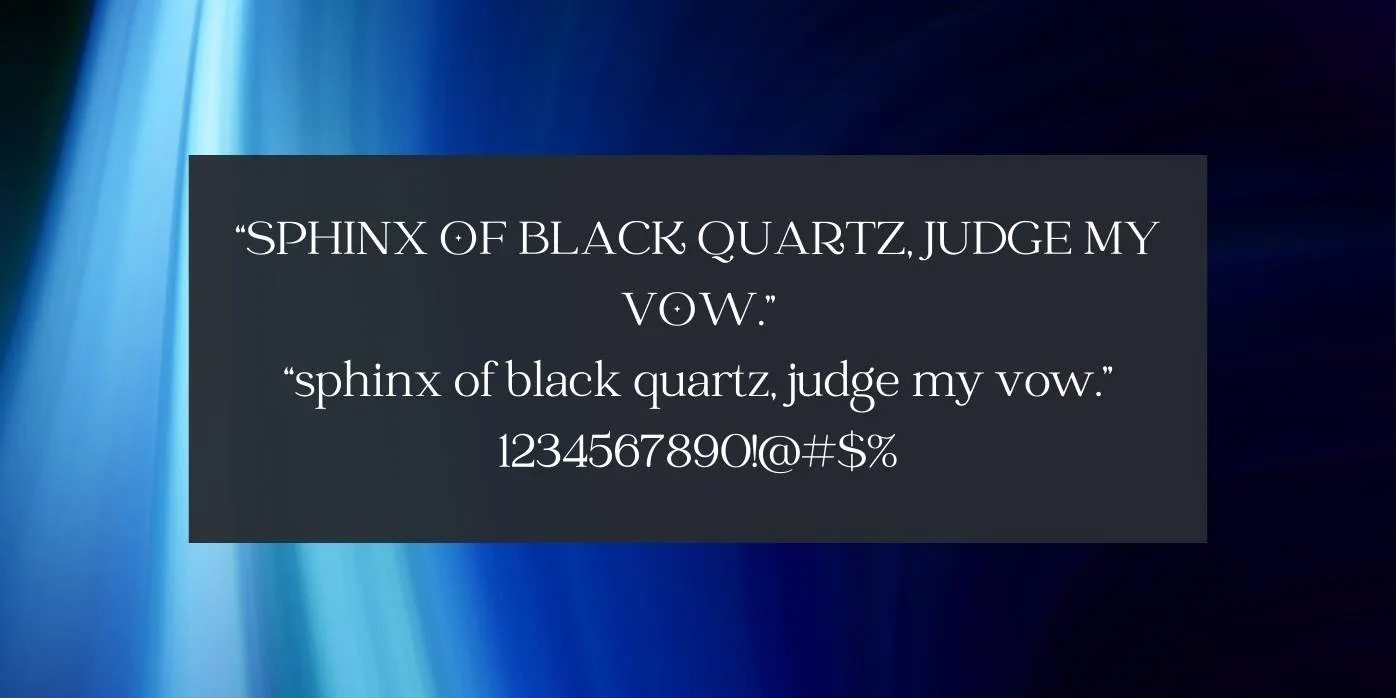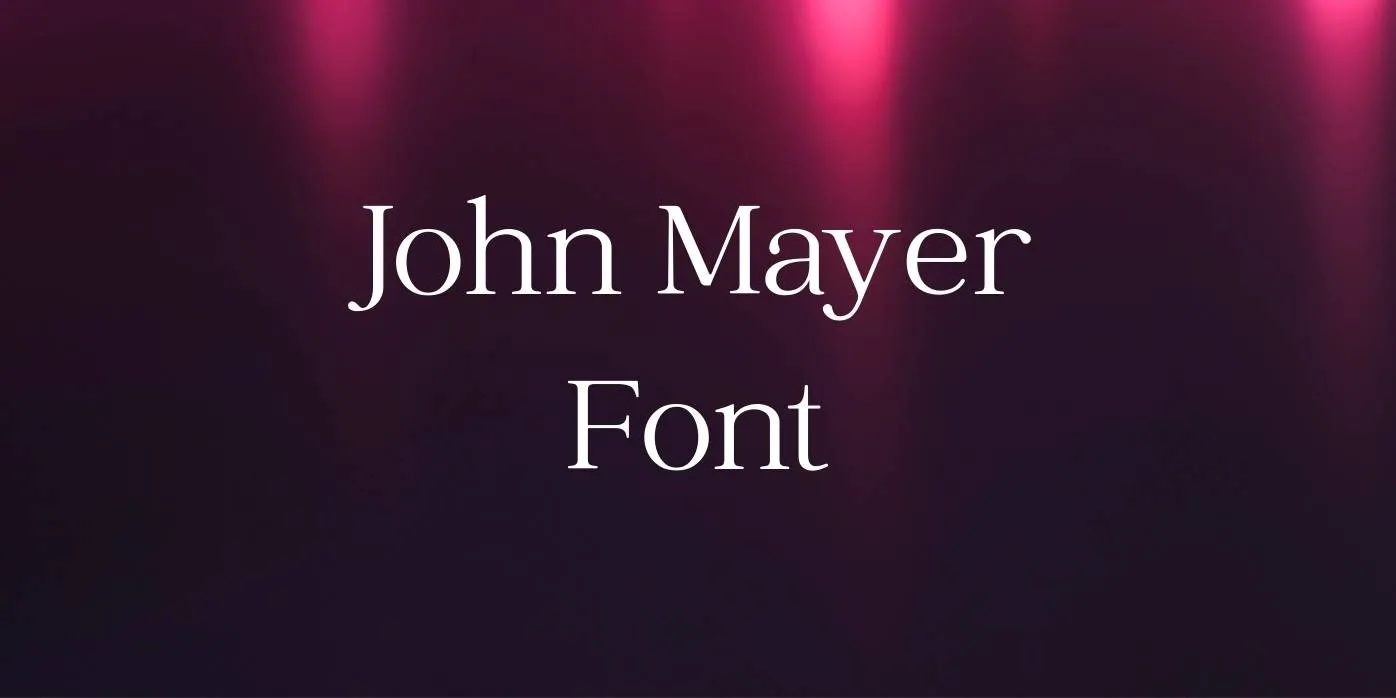
John Mayer Font
In this article, we introduce John Mayer Font which is very popular and belongs to the fancy family. This typeface was developed by John Mayer. He is a musician, songwriter, and producer from America. This classic typeface is well specified for the CSS and HTML.
This typeface has different styles including Regular, Bold, and Italic. It supports many languages including English, Spanish, French, and German. This font is perfect for headlines, posters, and logos. This stylish font also includes numbers and symbols.